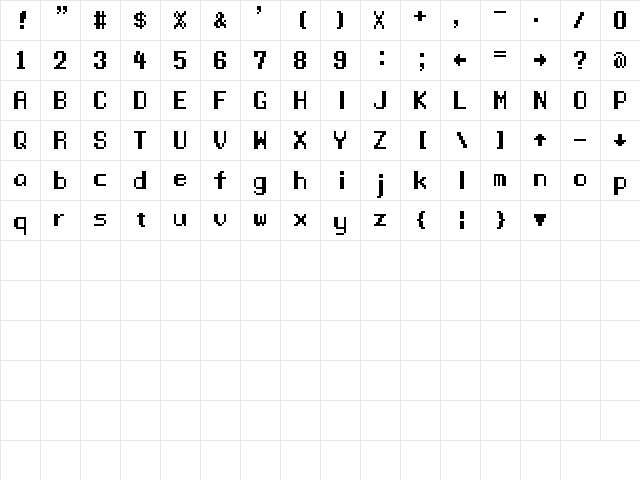
Manaspace Regular
Manaspace Family
Design Context for Manaspace
Manaspace is a composed and adaptable typeface that performs quietly and consistently across a wide range of design contexts.
Pro Tip: Use Manaspace in both headline and body roles to test its range before committing to a single application.